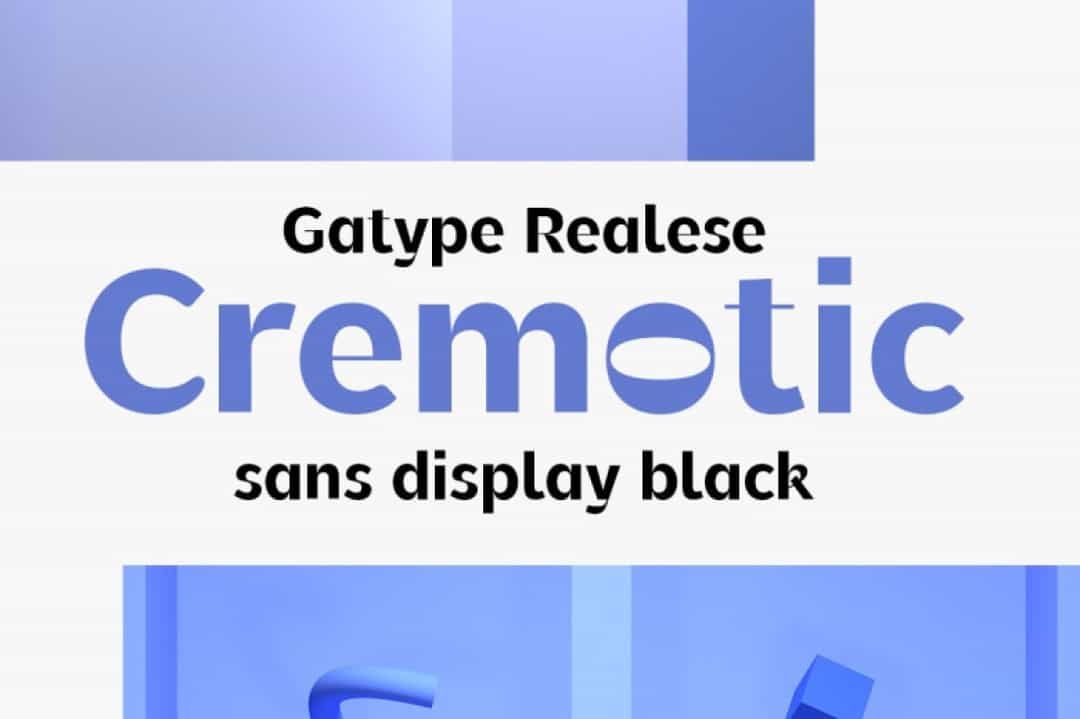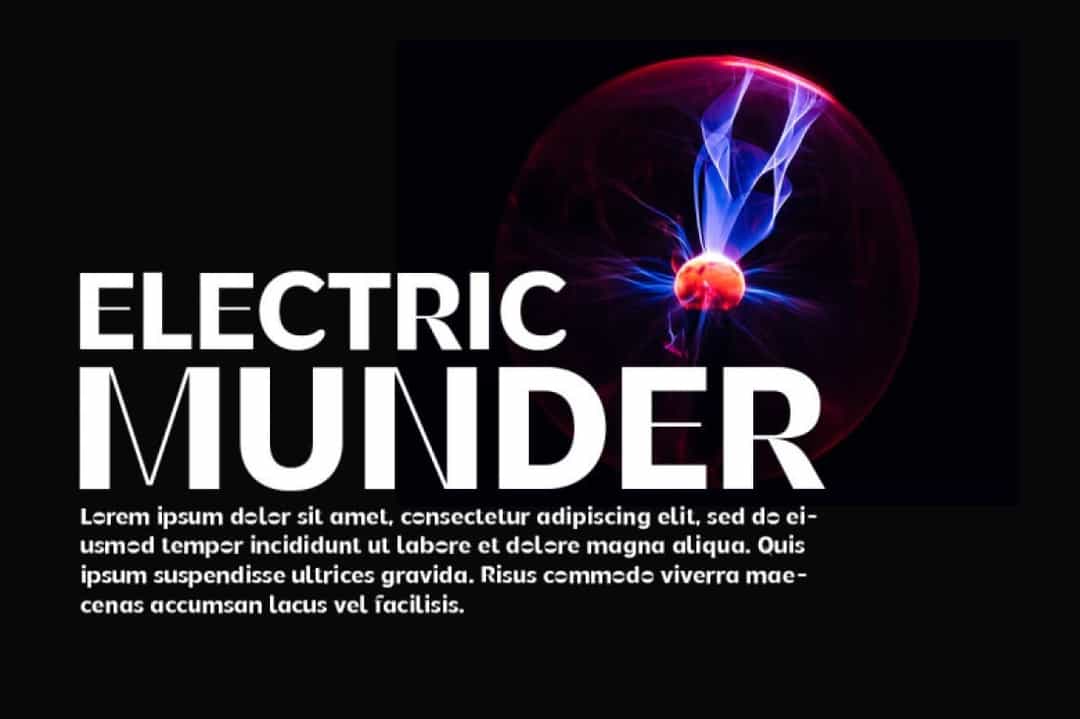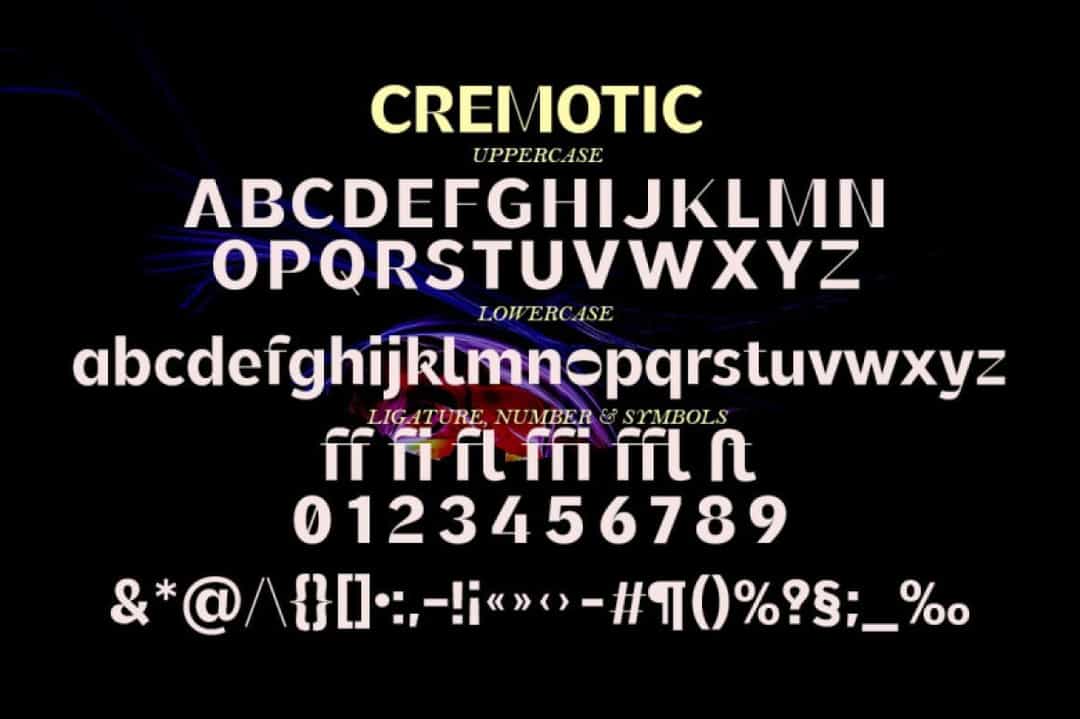
Cremotic is an eye-catching font with sharp cuts, angles, and interactive straps. The characters affected fall under three subfamilies of capital letters that each possess their own style and character traits. With bold characters separated into subfamilies by style as well as clever norms of ligature usage – creating an image which is both strong, stylish, contemporary, and attractive.